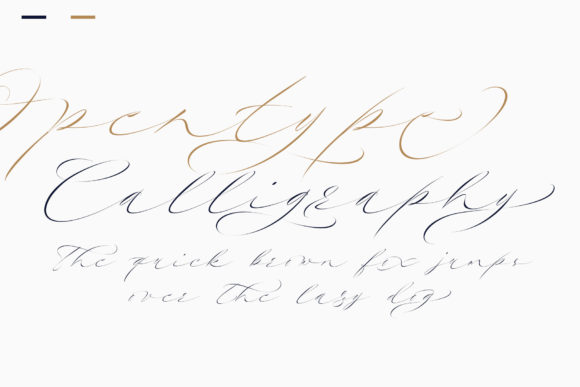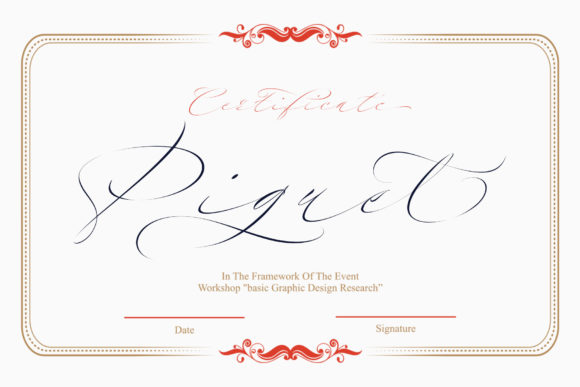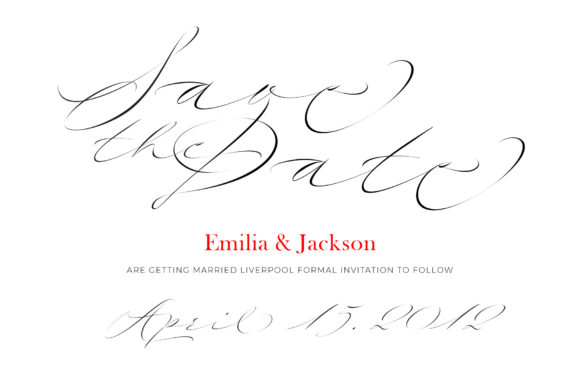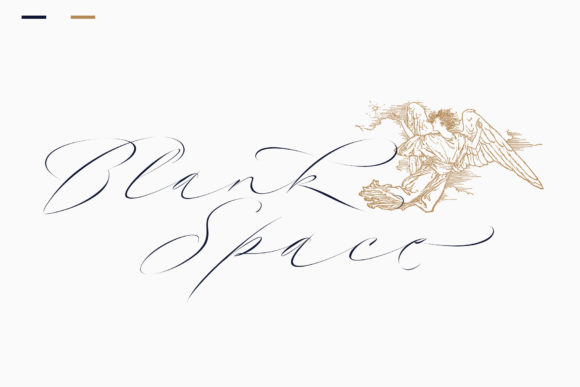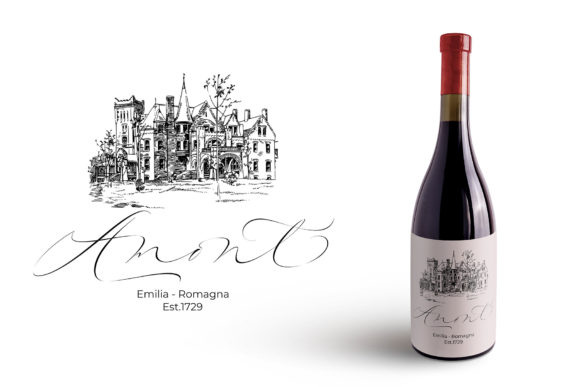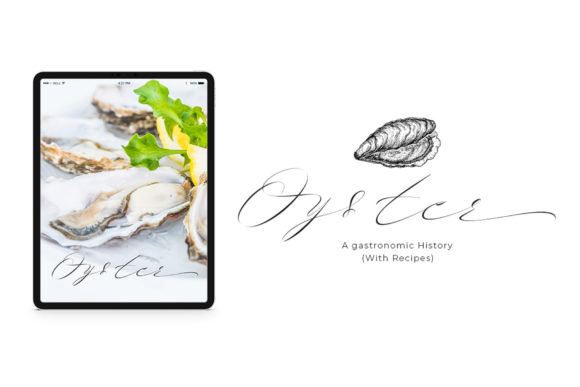
Introduction to Quntas Script Font
As a designer, you’ve been there – staring at a blank page, trying to bring a creative project to life. The perfect font can make all the difference. For me, it’s that moment when the words start flowing, and the design begins to take shape. And what better way to elevate your design than with the elegant Quntas Script Font?
This beautiful script font is a game-changer for any design project. Its thin letters and graceful style make it perfect for creating gorgeous wedding invitations, beautiful stationery art, and eye-catching social media posts. With Quntas Script Font, you’ll be able to add a touch of sophistication and elegance to any design, making it a valuable resource for designers of all levels.
Key Features of Quntas Script Font
- High-quality, elegant script font perfect for creative projects and design resources.
- Features a beautiful, handwritten style with unique characteristics, including swashes and flourishes.
Honest Review: Quntas Script Font
I recently stumbled upon the Quntas Script Font and decided to give it a try. As a designer, I’m always on the lookout for high-quality design resources to elevate my creative projects.
Here’s what works well: ✨ The font is incredibly versatile and can be used for a wide range of design projects, from branding and marketing materials to digital products and print materials. The Quntas Script Font is also available for free download, which is a major plus for designers on a budget.
However, I did encounter a few limitations: ⚠️ The font may not be suitable for all types of projects, particularly those that require a more modern or minimalist aesthetic. Additionally, the font may not be as customizable as some other script fonts on the market.
Overall, I’m impressed with the Quntas Script Font and would recommend it to designers looking for a high-quality, free design resource. With a little creativity, this font can be used to create some truly unique and eye-catching designs.
Tips for Getting the Most Out of Quntas Script Font
Use the Quntas Script Font to add a touch of elegance to your design. This high-quality font is perfect for creating a transparent background effect or adding a creative twist to your project. Experiment with different font sizes and colors to get the most out of this versatile design resource.
The Quntas Script Font is perfect for designing wedding invitations, party invitations, and other creative projects that require a touch of sophistication. It’s also great for creating social media graphics, blog posts, and other digital content that needs a high-quality, elegant font.